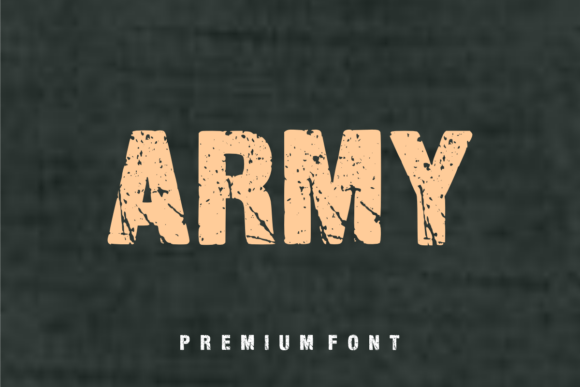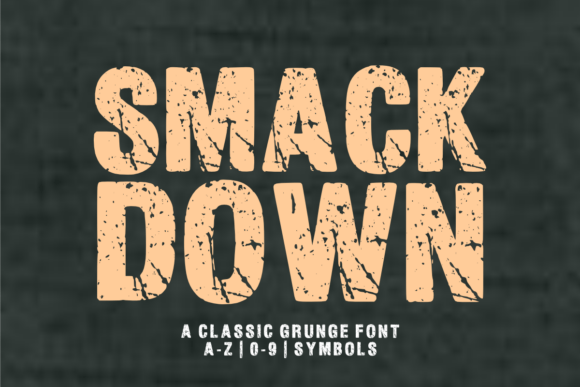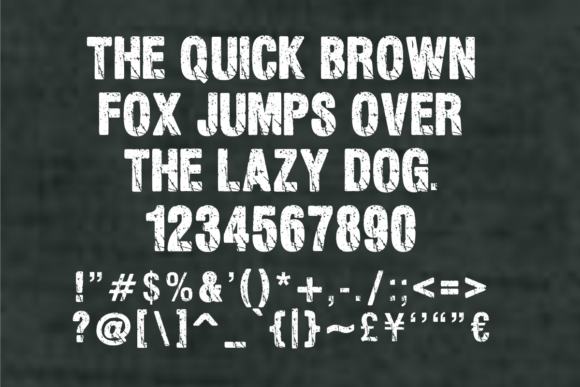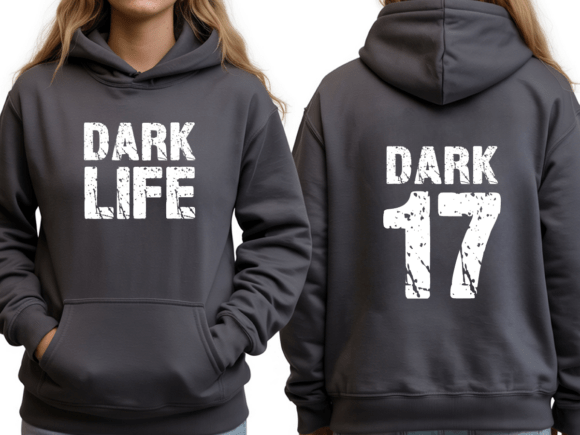
🔥 Hancock – Bold Classic Grunge & Textured Display Font 🔥
Add a touch of raw, vintage energy to your designs with Hancock! This font is a powerful display typeface featuring a classic sans-serif structure with a high-quality grunge texture. It perfectly captures the worn-out, weathered look of old letterpress printing and industrial stamps. Designed for impact, Hancock is the ideal choice for projects that need a rugged, masculine, and authentic “hand-made” feel.
Why You’ll Love Hancock
Hancock is more than just a font – it’s an experience. With its authentic grunge texture and bold letterforms, it’s the perfect choice for designers and crafters looking to add a touch of industrial chic to their work. Here are just a few reasons why you’ll love Hancock:
- Authentic Grunge Texture: Realistic distressed details for a true vintage look.
- Solid & Bold: Strong letterforms that ensure your message is loud and clear.
- Timeless Style: A classic grit that never goes out of fashion.
- ✅ Character Set: Full Uppercase (A-Z), Numbers (0-9), and Essential Symbols.
Perfect For
Hancock is perfect for a wide range of design projects, including:
- 👕 Apparel: Distressed t-shirts, hoodies, and other streetwear.
- 📦 Packaging: Labels, stickers, and other packaging materials.
- 🖨️ Print Design: Posters, flyers, and other print materials.
- 📊 Digital Design: Social media graphics, website headers, and more.
Tips for Using Hancock
Hancock is a powerful display font that’s perfect for designers and crafters looking to add a touch of raw, vintage energy to their work. With its authentic grunge texture and bold letterforms, it’s the ideal choice for projects that need a rugged, masculine, and authentic “hand-made” feel. Download Hancock today and take your designs to the next level!